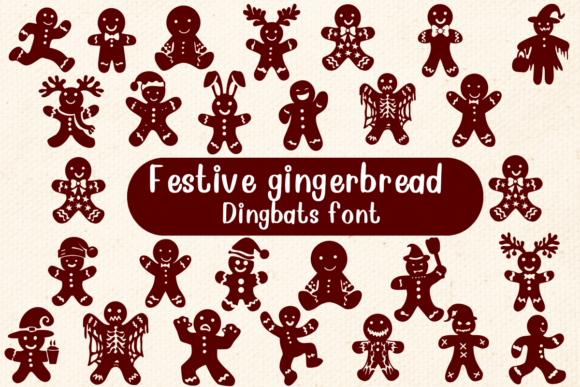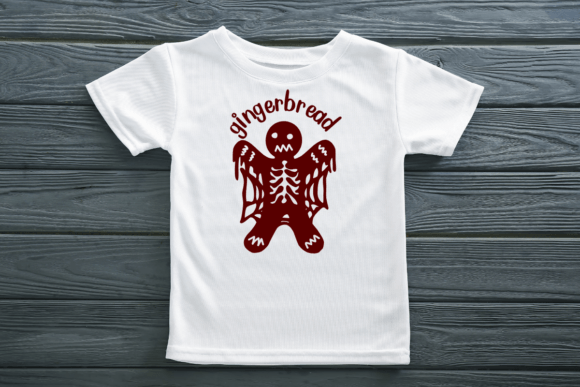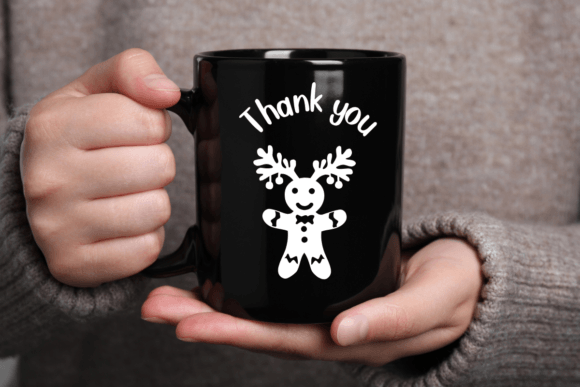
Festive Gingerbread Font
Festive Gingerbread is a fun and cheerful font filled with cute gingerbread men. Perfect for holiday cards and decorations, this dingbat font brings joy and a festive spirit to your designs. Each character looks like a happy gingerbread man, adding a sweet touch to your projects.